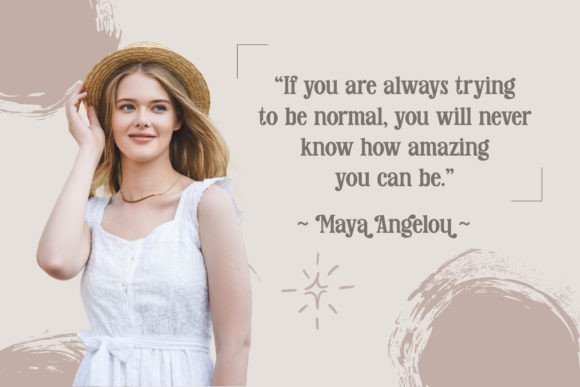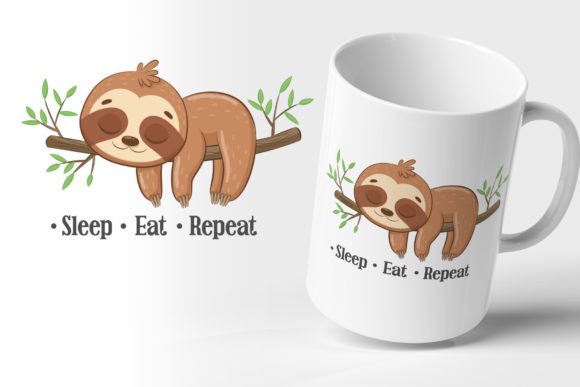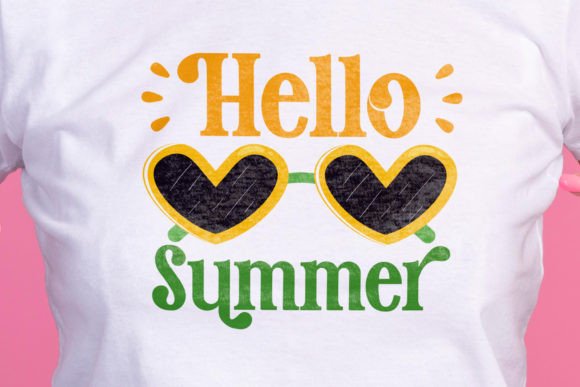
Introduction to Major Font
Do you ever get that spark of creativity that refuses to be contained? For designers, it’s the moment when the perfect font pops into your head and suddenly, your entire project comes together. It’s the elusive combination of style and substance that elevates your work from good to great.
That’s where Major Font comes in – a high-quality design resource that’s ready to take your creative projects to the next level. With its versatility and timeless appeal, this font is perfect for both modern and vintage design styles. Whether you’re working on a blog post, logo, or even decorations, Major Font is an invaluable asset to have in your design toolkit.
Key Features of Major Font
Honest Review: Major Font
I recently came across Major Font while searching for free download resources to enhance my creative project. At first glance, I was impressed by the font’s high quality and versatility. The transparent background makes it easy to layer over other design elements without any visual clutter.
What works well: ✨ Major Font offers a wide range of styles and weights, making it perfect for designers who want to add a touch of sophistication to their projects. The font is also highly legible, even at small sizes, which is a must-have for any design resource.
Here are some of the key features that stood out to me:
- Wide range of styles and weights
- Highly legible at small sizes
However, I did encounter a few limitations: ⚠️ The font is not as extensive as some other popular resources, and it may not be suitable for complex, multi-font projects.
Overall, I’m impressed with Major Font’s quality and versatility. While it may not be perfect, it’s definitely a valuable addition to any designer’s toolkit, especially for creative projects that require a touch of elegance and sophistication.
Tips for Getting the Most Out of Major Font
For a transparent background, use the font with a white or light-colored background to create a striking design. Experiment with different font sizes and styles to add depth and visual interest to your project.
Major Font is perfect for creating eye-catching titles, headings, and captions for your creative project. Use it to add a professional touch to your designs, brochures, and marketing materials.